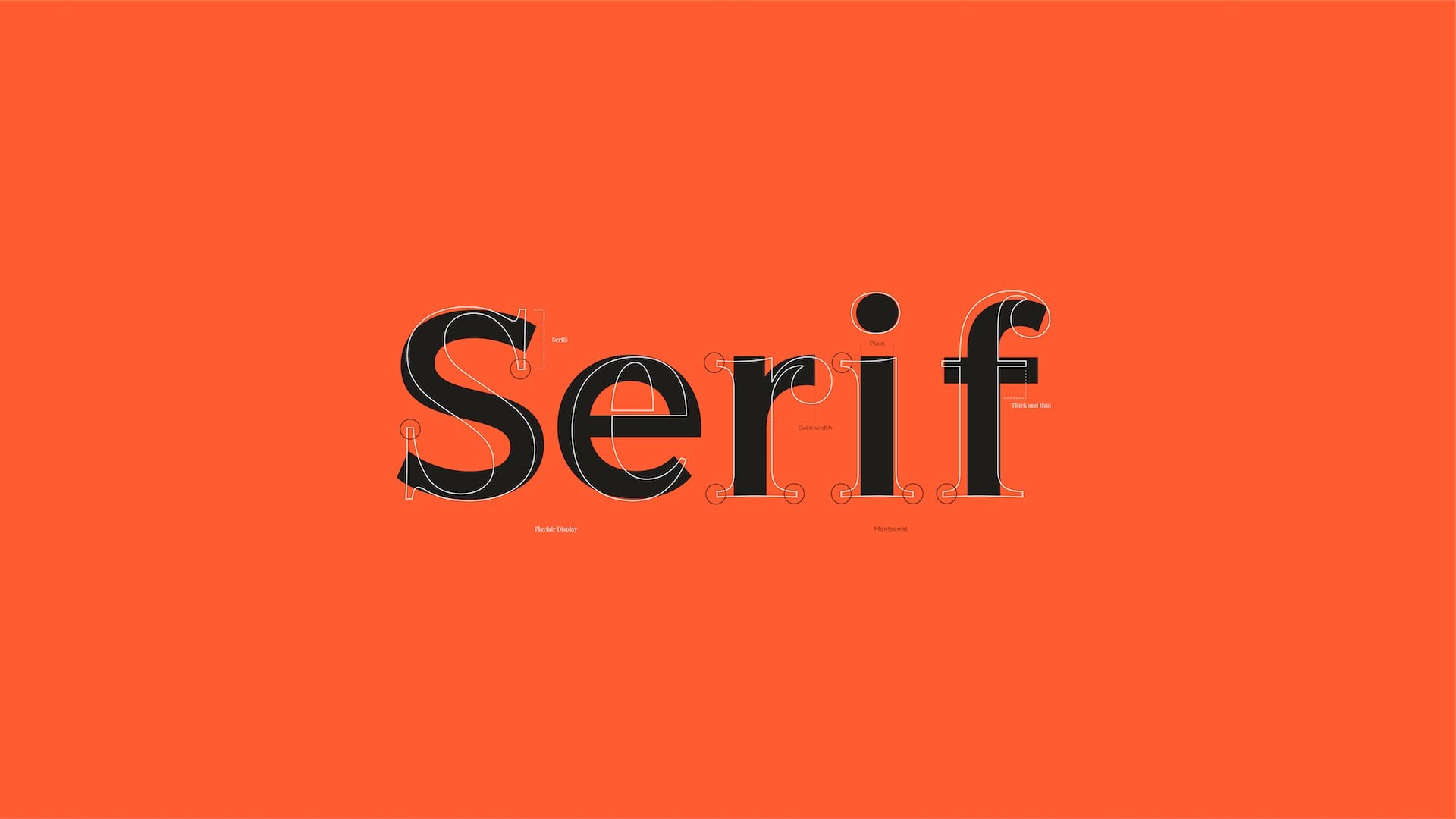
Serif vs. sans serif font. What’s the difference? What kind of message does each send? And what’s the best font choice for your brand? We asked two design experts, Natalie Downey, Senior Designer at Duckpin(opens in a new tab or window), and Robyn Young, founder of branding agency robyn young & co(opens in a new tab or window) to share their insights.
When it comes to fonts, you’ve got lots of choices (Helvetica or Times New Roman? Georgia Bold or Bebas Neue? Or, heaven forbid...Comic Sans?!). But before you can make a choice about what font is the best fit for you, your brand, and your designs, you need to understand the different categories.
And while there are a number of font categories out there (like script or graphic), the two most important categories you need to understand to make informed design decisions? Serif and Sans Serif.
So, what is the difference between serif vs. sans serif fonts? What does each category say about your brand? And what kind of designs are the best fit for each?
Let’s take a deep dive into serif vs. sans serif fonts to help you figure out which category is the best fit for you and your designs:
So, first things first: What, exactly, is the difference between serif vs. sans serif fonts?
“As their names suggest, the main difference between these two typefaces is the presence or absence of serifs within the letters,” Natalie Downey, Senior Designer at Duckpin.(opens in a new tab or window)
“A serif is a decorative line or taper added to the beginning and/or end of a letter’s stem, which creates small horizontal and vertical planes within a word.”
So, in a nutshell, serif fonts have those decorative lines or tapers (also commonly referred to as “tails” or “feet”) while sans serif fonts don’t—hence the “sanes” in their title.
“Without tails, sans-serif fonts are made up of simple, clean lines that are the same width throughout,” says Downey.
Some of the most commonly used serif fonts include Times New Roman, Garamond, Baskerville, Georgia, and Courier New. Some of the most popular sans serif fonts on the black include Arial, Helvetica, Proxima Nova, Futura, and Calibri.
Now that you understand the difference between serif and sans serif fonts, let’s talk about what message each category sends—and why it’s important to make sure the fonts you choose send the right message about your brand(opens in a new tab or window).
“A startup tech company and an established law firm most likely don't want to convey the same message through their logo and branding,” says Downey. “This is where the endless variety of fonts come into play.”
If you’re going for a traditional look and feel in your designs, you’re definitely going to want to go the serif route. “Serif fonts have been widely used in books, newspapers, and magazines, which is why they remind us of more classical, formal and sophisticated themes—think of Old English and Roman scripture,” says Robyn Young, founder of branding agency robyn young & co.
Serif fonts are a great choice for brands that want to be seen as trustworthy, established, and reliable. “Because serif typefaces date back to the 18th century, companies that utilize serif fonts are often seen as more established, serious, and traditional,” says Downey. “Consumers are drawn to the traditional look because of the implied heritage and loyalty of the brand.”
Serif fonts are a great choice for more traditional businesses (like law practices, financial firms, or insurance companies) and for more corporate-leaning designs (like marketing brochures or RFPs).
If serif fonts are all about embracing tradition, sans serif fonts are about throwing tradition out the window in favor of modern sophistication. “Sans serif is considered more modern because they are minimal and simplistic and post-date serif fonts,” says Young.
If you want your brand to come across as more youthful and accessible, sans serif fonts can feel much more approachable than their stuffier, more corporate serif counterparts. “When a company chooses a sans-serif font to represent their brand, they are usually trying to communicate a more youthful and modern quality,” says Downey. “The sharp, clean lines of a sans-serif font can also be viewed as more approachable and playful because of its simplicity.”
Serif fonts are the go-to choice for any brand that wants to appear timely and cutting-edge (like startups or tech companies) and for more creative branding designs (like logos(opens in a new tab or window) or social graphics(opens in a new tab or window)).